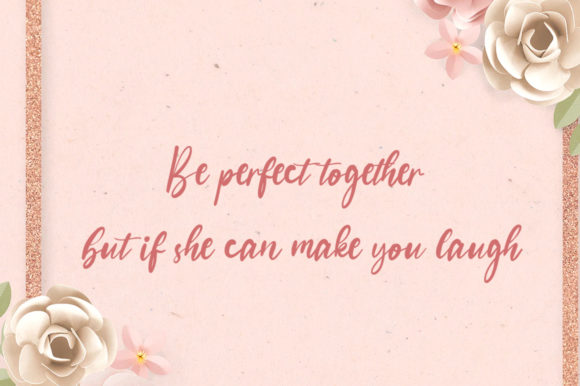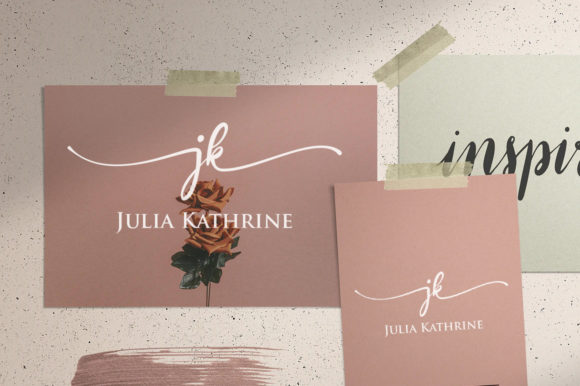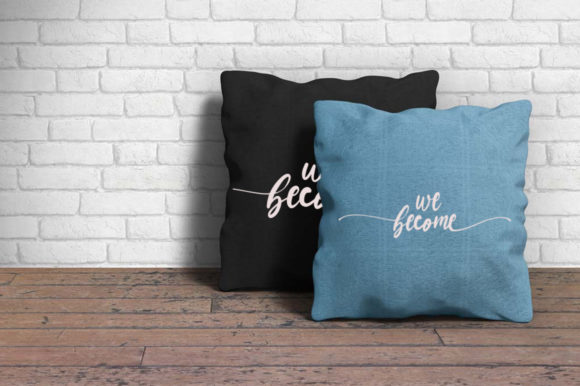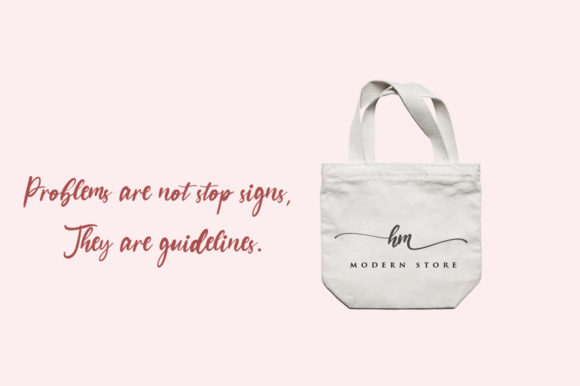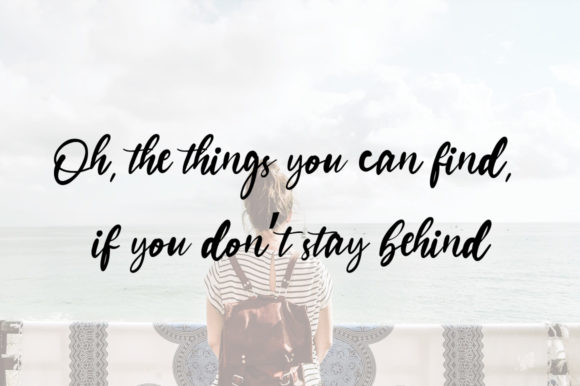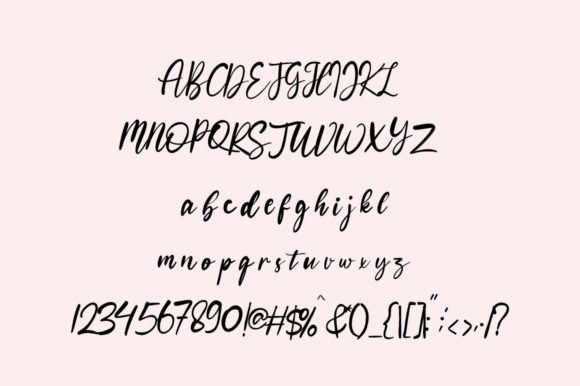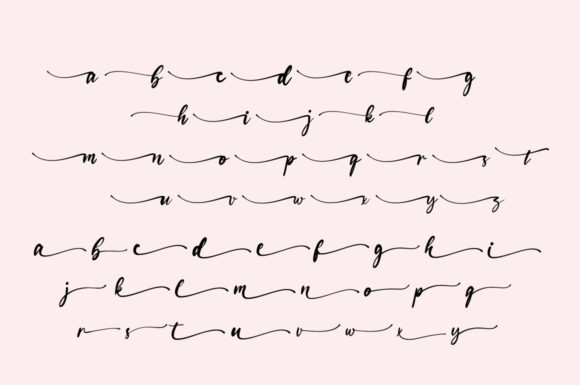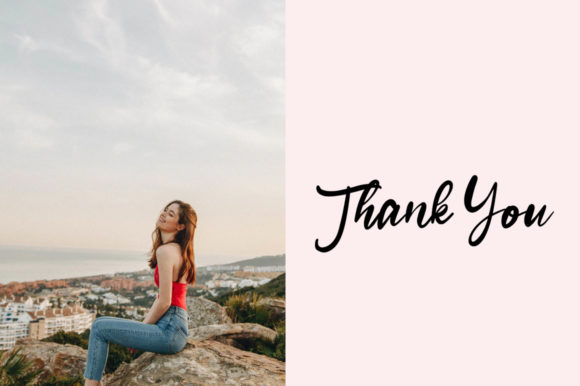
Bohemian Font
About Bohemian Font
Bohemian is a magical handwritten font carefully created with a touch of elegance. It will elevate a wide range of design projects to the highest level, be it branding, headings, wedding designs, invitations, signatures, logos, labels, and much more!